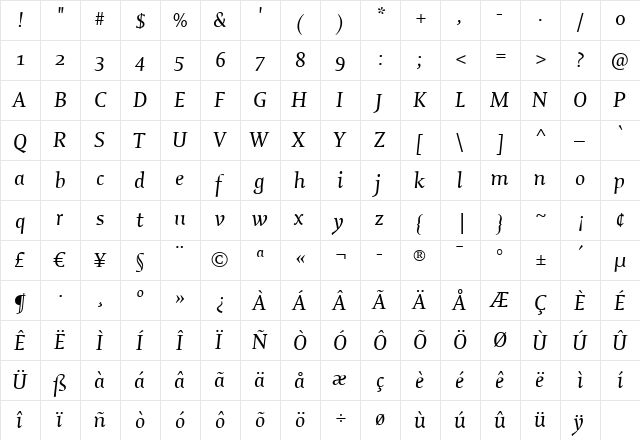
Enigma Regular
Design Context for Enigma Typeface
Enigma is a composed and adaptable typeface that performs quietly and consistently across a wide range of design contexts.